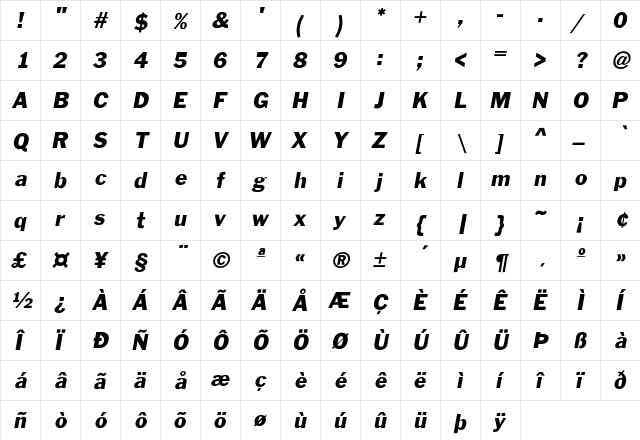
FranklinGothic-Oblique Regular
Design Context for FranklinGothic-Oblique Typeface
FranklinGothic-Oblique takes a clean, functional approach — its unadorned letterforms prioritise legibility and work reliably across screen and print environments. The dynamic lean of this cut emphasises speed and emphasis in any layout.
Font Pairing: Works well alongside a characterful serif or display font that can carry the expressive load while FranklinGothic-Oblique handles the functional copy.
Pro Tip: Pair FranklinGothic-Oblique with a display or serif font for headlines — its neutral character makes it an excellent supporting player in complex typographic systems.